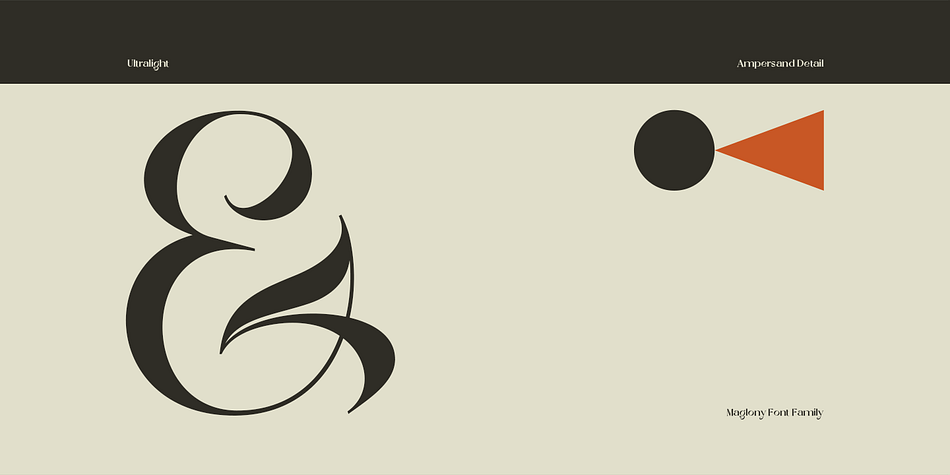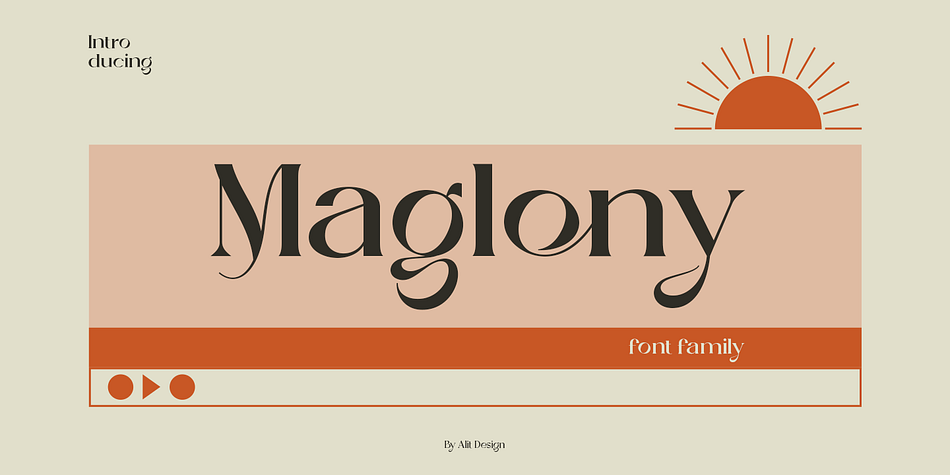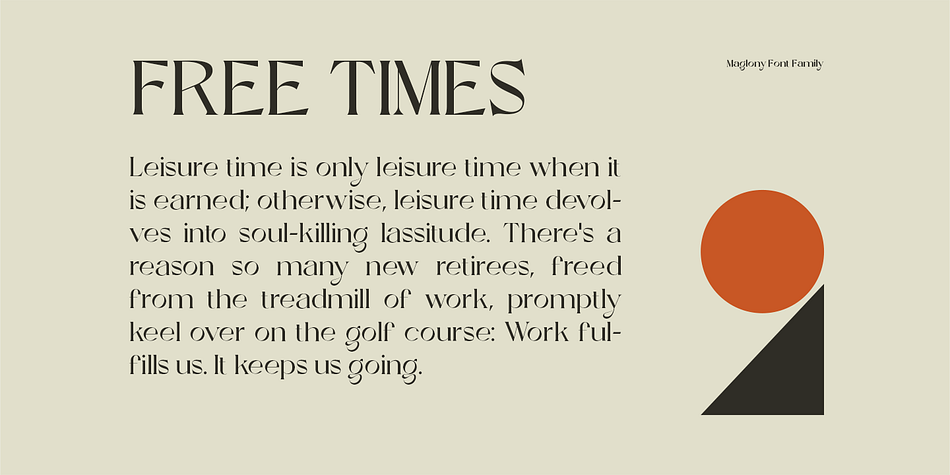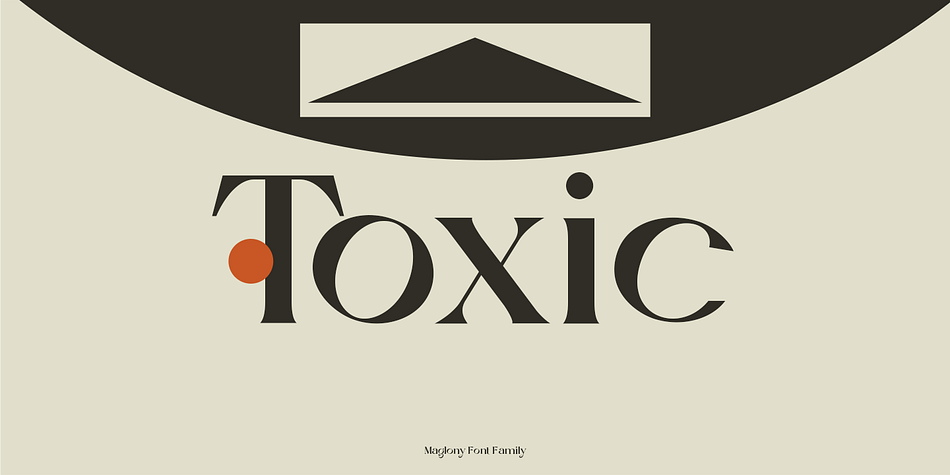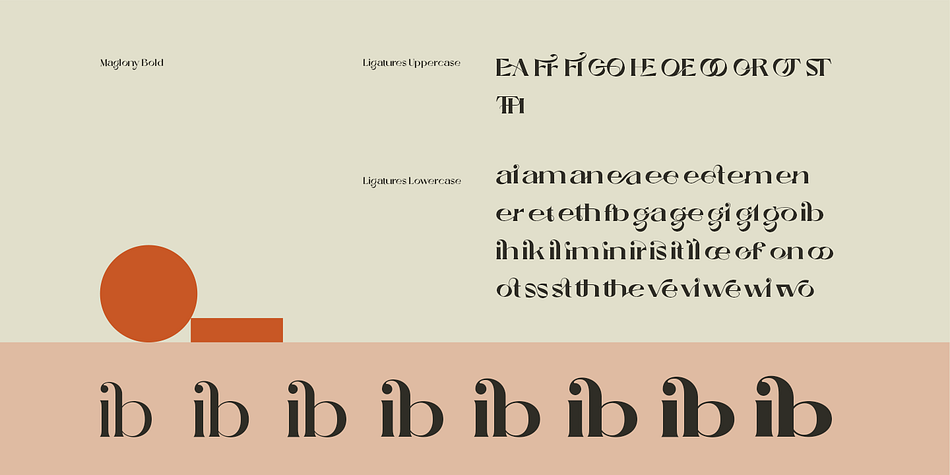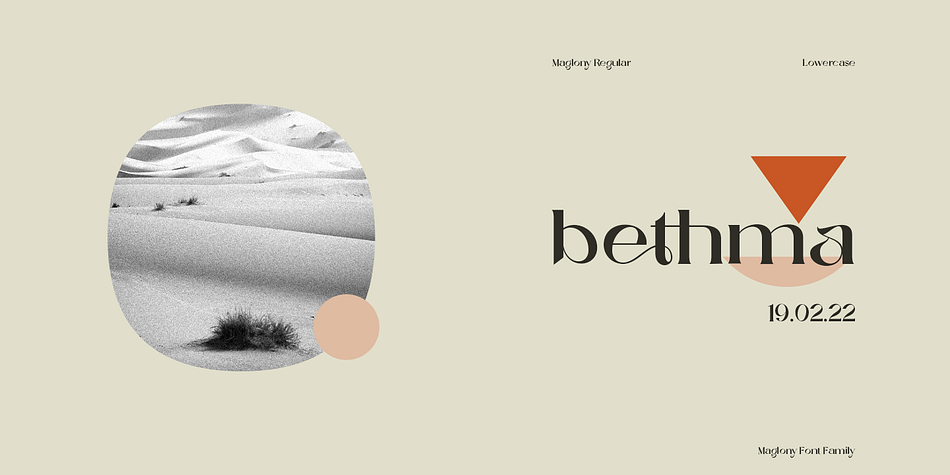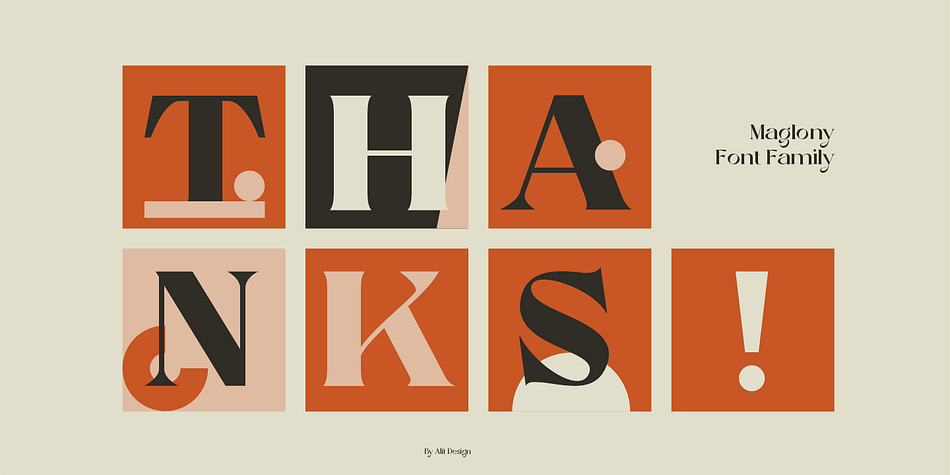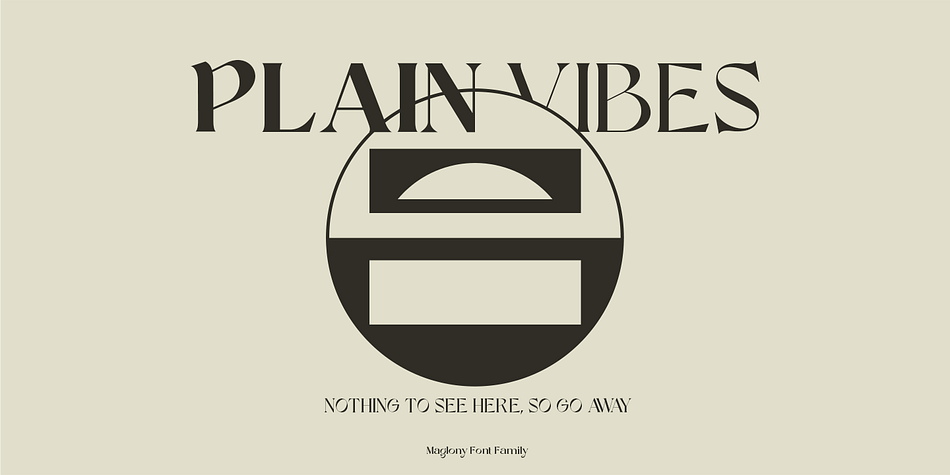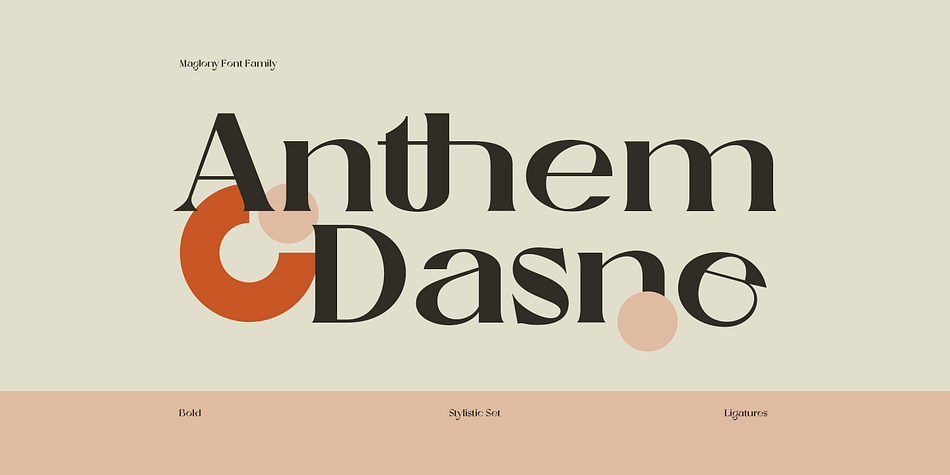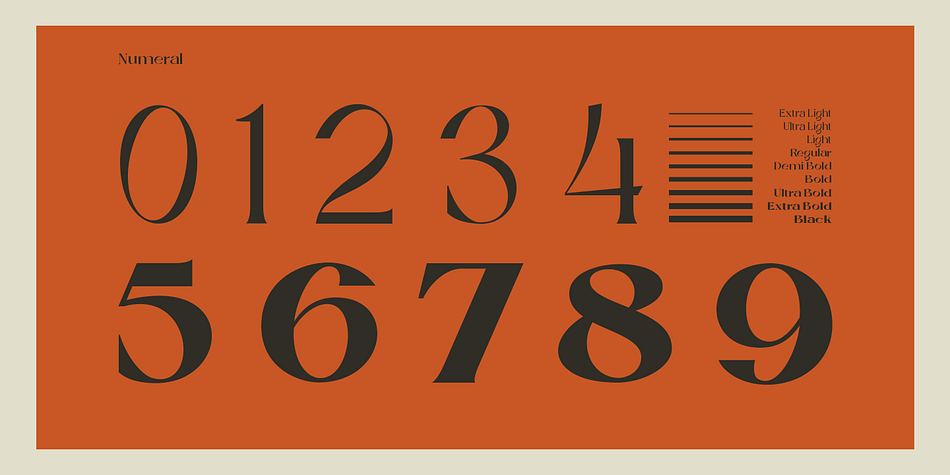
Designed by Alit Suarnegara, Maglony is a display serif font family. This typeface has nine styles and was published by Alit Design.
Introducing Maglony typeface
The Maglony Serif typeface is an elegantly themed font that has a dynamic serif style. The details of the shape of the “Maglony Serif Elegant typeface” are very smooth and flow to create unique and beautiful curves. Elegant Serif typefaces such as “Maglony Serif Elegant typeface” are very easy to apply to any design, especially those with an elegant and smooth concept, besides that this font is very easy to use both in design and non-design programs because everything changes and glyphs are supported by Unicode (PUA).
The Maglony Serif Elegant typeface contains 577 glyphs with many unique and interesting alternative options. Plus, there’s a cool serif font family for header and description text from Thin to Heavy. In the poster preview all the letters are in the Maglony Serif Elegant typeface.